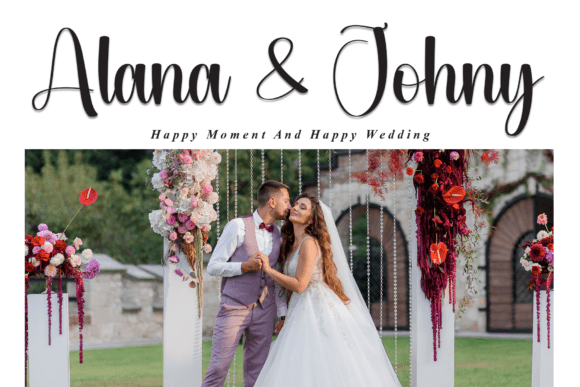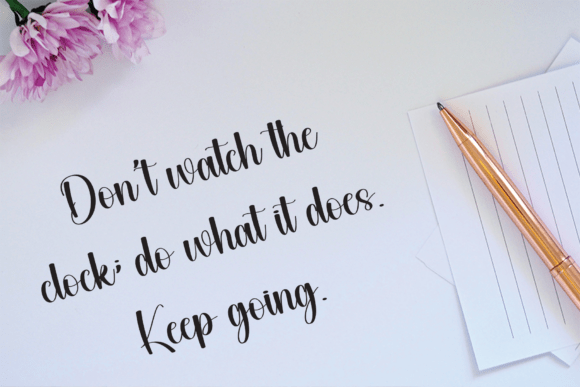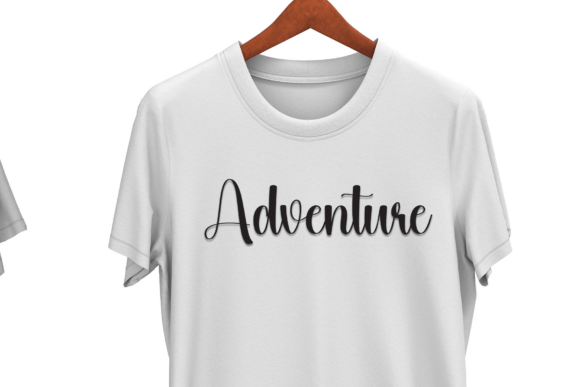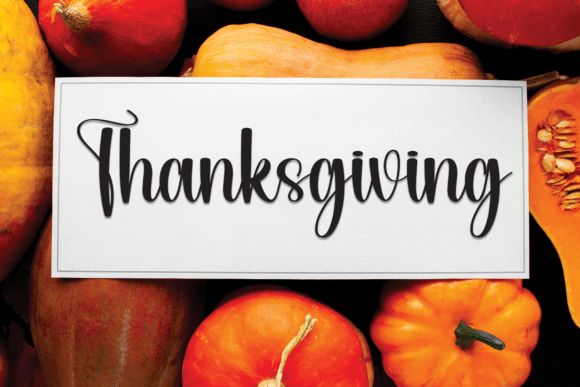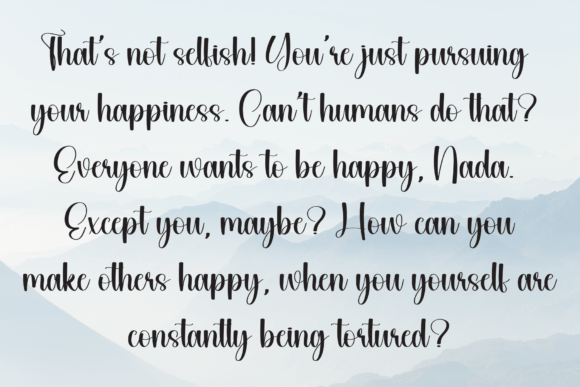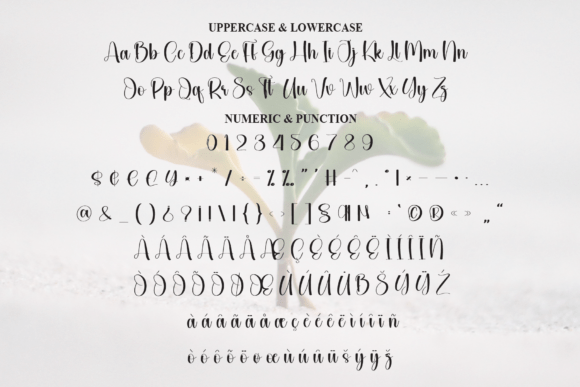
Introducing Growth Font: Elevate Your Designs with Modern Elegance and Playful Charm
In the world of typography, fonts play a crucial role in conveying the tone and personality of a design. For designers and crafters looking to add a touch of sophistication and whimsy to their projects, Growth Font is an exceptional choice. This stylish handwritten script font seamlessly blends modern elegance with a playful touch, making it perfect for a wide range of applications.
The Unique Characteristics of Growth Font
Growth Font boasts fluid strokes and charming curves that bring a personal feel to any design. Its unique characteristics make it stand out from other fonts, adding a level of warmth and sophistication that is hard to achieve with more traditional typefaces. Whether you’re working on a logo, packaging, or invitation, Growth Font is sure to make your project shine.
Key Features of Growth Font
- Modern Elegance: Growth Font exudes a sense of modern sophistication, making it perfect for designs that require a touch of elegance.
- Playful Touch: The font’s playful curves and fluid strokes add a whimsical touch to any design, making it ideal for projects that require a bit of personality.
- Versatility: Growth Font is incredibly versatile, making it suitable for a wide range of applications, from logos and packaging to invitations and more.
- Handwritten Script: The font’s handwritten script style gives it a personal feel that is hard to replicate with more traditional typefaces.
Growth Font is an excellent choice for designers and crafters looking to add a touch of personality to their projects. Its unique blend of modern elegance and playful charm makes it perfect for a wide range of applications, including:
- Logos: Growth Font is ideal for creating unique and memorable logos that stand out from the crowd.
- Packaging: The font’s elegant and playful style makes it perfect for packaging designs that require a touch of sophistication.
- Invitations: Growth Font is a great choice for invitations, adding a level of warmth and personality to any event.
- Unique Style: Growth Font offers a unique blend of modern elegance and playful charm that is hard to find in other fonts.
Growth Font is an exceptional choice for designers and crafters looking to add a touch of modern elegance and playful charm to their projects. Its unique characteristics, versatility, and high-quality design make it perfect for a wide range of applications. Whether you’re working on a logo, packaging, or invitation, Growth Font is sure to elevate your design and make it shine.